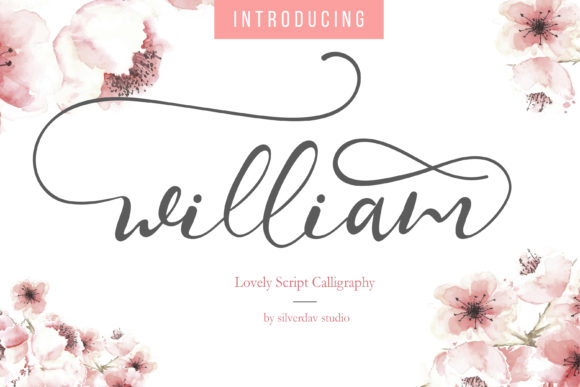
William: A Modern Script Font
The William font is a fresh and modern calligraphy script that brings an elegant and charming style to any design project. As a premium font, it's ideal for greeting cards, branding materials, quotes, posters, and more. Its unique personality makes it a valuable addition to any designer's toolkit.
Designed with editorial use in mind, William offers a balance between artistic flair and readability. Its flowing lines and subtle variations give it a handwritten feel while maintaining clarity. This makes it perfect for use in article layouts, covers, headings, and quote graphics.
For publishers and content creators, William can enhance publication branding and reader engagement. It adds a touch of sophistication to blog headers, magazine covers, ebook titles, and newsletter graphics. Its versatility allows it to work well in both digital and print formats.
Using William in Editorial Design
William excels as a display font, making it ideal for headlines, section titles, and pull quotes. Its visual appeal helps draw attention and guide readers through content. When used strategically, it can create a strong visual hierarchy that supports the overall layout of a publication.
In a lifestyle blog, for example, William could be used for featured post titles or section headers. For a recipe ebook, it might appear in chapter openers or on printable recipe cards. In a wedding guide, it could add a personal touch to invitations or special sections.
As a script font, William works best for shorter text elements rather than long blocks of body copy. Its intricate details may reduce readability when used in extended reading. However, when paired with a readable serif or sans serif font, it can create a visually pleasing contrast that enhances the overall design.
Practical Applications of William
William is particularly effective in quote layouts, where its elegant style can highlight key messages. It also works well in printable guides, lead magnets, and worksheets, adding a personal and professional touch to the design. For a coaching workbook, it could be used in title pages or motivational sections.
When designing a digital magazine, William can serve as a striking cover text or header. It also complements social media graphics, where its visual personality can catch attention and reinforce brand identity. In packaging design, it can add a custom feel to labels or product descriptions.
For a creator newsletter, William can be used in subject lines, section dividers, or feature highlights. Its ability to convey warmth and creativity makes it a great choice for content that aims to connect with readers on a personal level.
Readability and Technical Considerations
While William is visually appealing, it's important to consider its readability in different formats. On screens, especially smaller devices, the font may require larger sizes or careful spacing to maintain legibility. In PDF exports, it should render clearly without distortion.
For print, William's fine details may need to be adjusted depending on the paper quality and printing method. It's always a good idea to test the font in real-world scenarios before finalizing a design. Multilingual support is also a consideration, depending on the target audience.
Font Pairing and Design Assets
To maximize the impact of William, pair it with complementary fonts that enhance readability and visual balance. A clean sans serif font like Roboto or Open Sans can provide a strong contrast for body text. A classic serif font such as Georgia or Merriweather can offer a timeless look for longer passages.
For navigation elements or captions, a minimalist font can help keep the design uncluttered. This approach ensures that William remains the focal point while supporting the overall structure of the layout. Font pairing also plays a role in establishing a cohesive brand identity across different mediums.
When selecting design assets, consider the range of styles and weights available in the William font. Alternate characters, ligatures, and stylistic sets can add variety and depth to your typography. These features can be used to create unique visual effects without compromising readability.
William in Brand Identity and Content Creation
William's distinct character makes it a powerful tool for building brand identity. Whether it's for a new startup, a creative agency, or a personal project, the font can help establish a consistent and recognizable visual language. Its charm and elegance contribute to a professional yet approachable aesthetic.